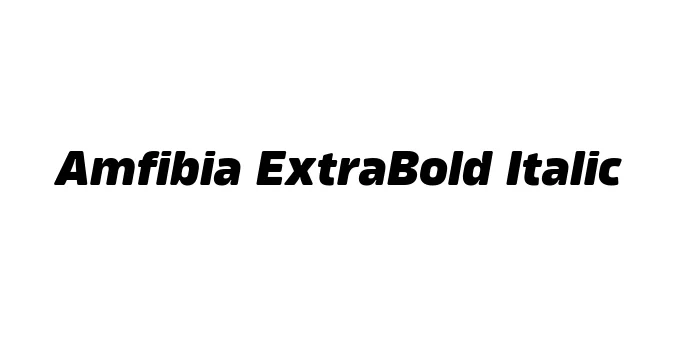
Amfibia ExtraBold Italic
Designed by Borislav Petrov
Amfibia ExtraBold Italic is a high-energy, dynamic typeface designed by Borislav Petrov, released through the Lettersoup foundry. This specific weight is characterized by its heavy, authoritative presence and a sharp italic slant that conveys motion and forward momentum. It successfully blends the technical rigidity of a geometric sans-serif with the fluid, organic qualities of humanist design, resulting in a typeface that feels both engineered and approachable.
The ExtraBold Italic variant is particularly effective for display purposes where visual impact is paramount. Its wide proportions and thick strokes are meticulously balanced to maintain clarity, even with the aggressive tilt. Designed for modern applications, it performs exceptionally well in digital environments, branding for the tech and automotive industries, and any project that requires a bold, contemporary aesthetic with a sense of speed.
Amfibia ExtraBold Italic Best Uses
Excellent for team logos, jerseys, and athletic apparel graphics.
Perfect for high-action game titles, UI elements, and loading screens.
Conveys speed and precision for car-related advertisements and brochures.
Great for loud, eye-catching headlines in magazines and online journals.